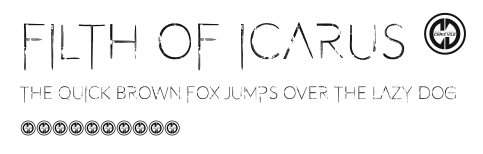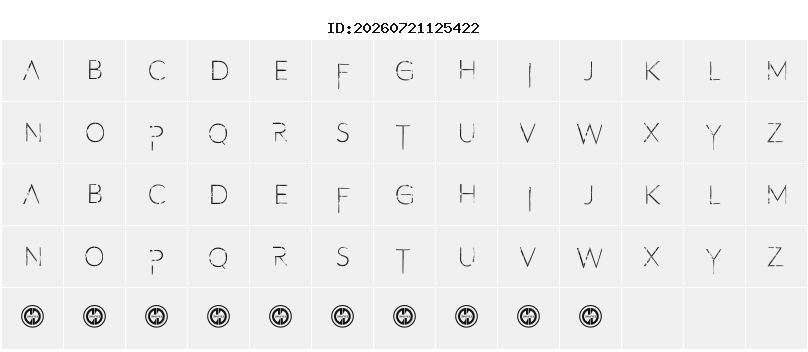
• Font Name: Filth of Icarus 2
• Full Font Name: Filth of Icarus 2
• Version: Version 1.40 August 9, 2016
• Designer: Chris Vile
• Manufacturer: Font Monger
• Description: Filth of Icarus 2 Regular is a font by Font Monger, designed by Chris Vile in 2016.
About Filth of Icarus 2.ttf
Filth of Icarus 2.ttf is a modern, elegant sans-serif font designed for ultimate readability and visual harmony. Perfect for branding, headlines, web design, and print materials.